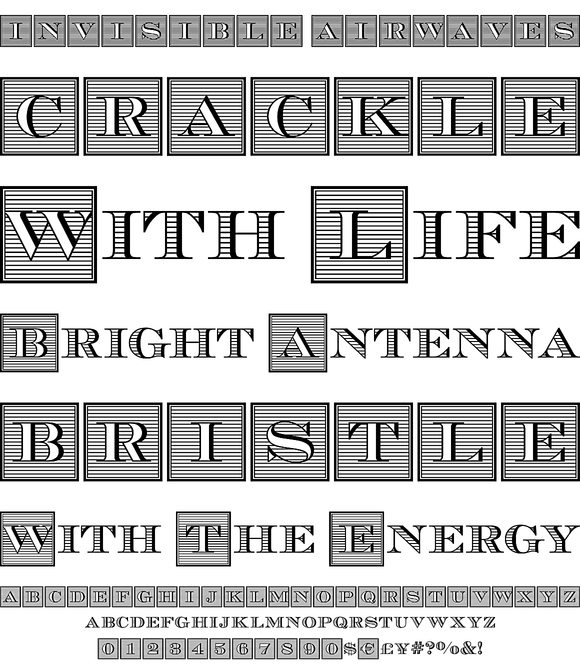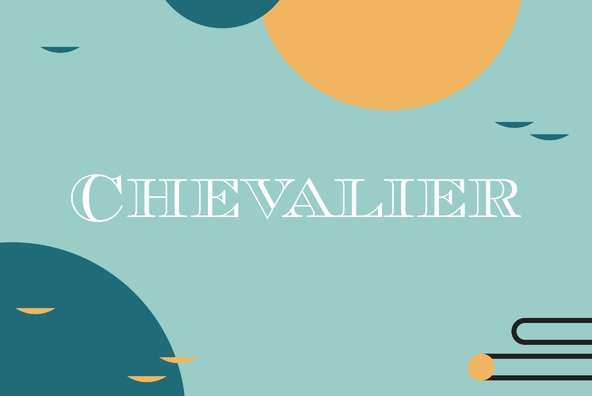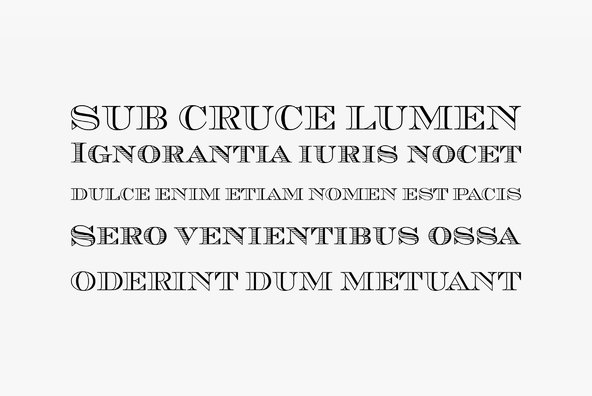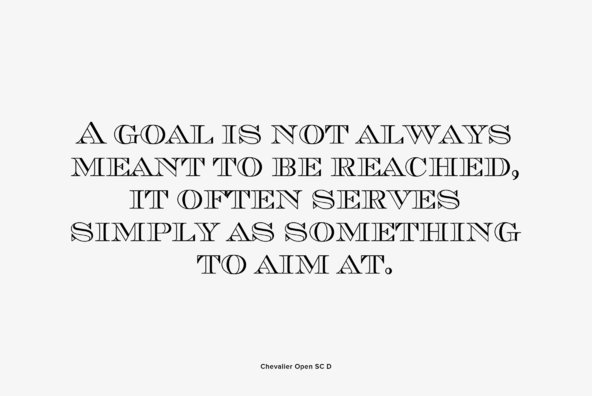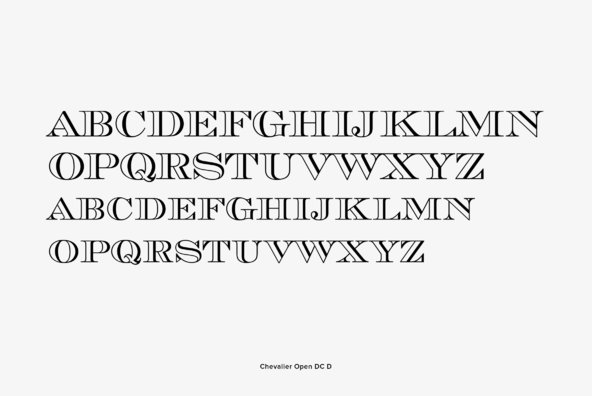
Chevalier
Chevalier LP is a revived decorative face with a European lineage. Its patterned and shaded fatface letterforms exhibit the continent's 19th century fascination with elaborate engraving techniques, often used on currency as a deterrent against counterfeiting. For this reason Chevalier evokes images of bank notes and finance.